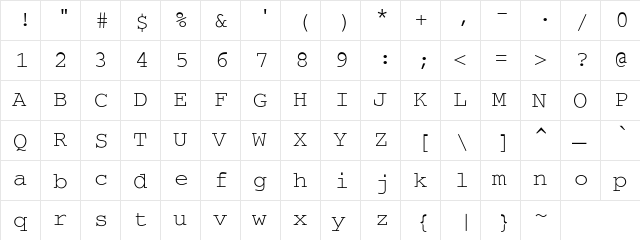
Bouvian-a Regular
Design Context for Bouvian-a Typeface
Bouvian-a is a composed and adaptable typeface that performs quietly and consistently across a wide range of design contexts.